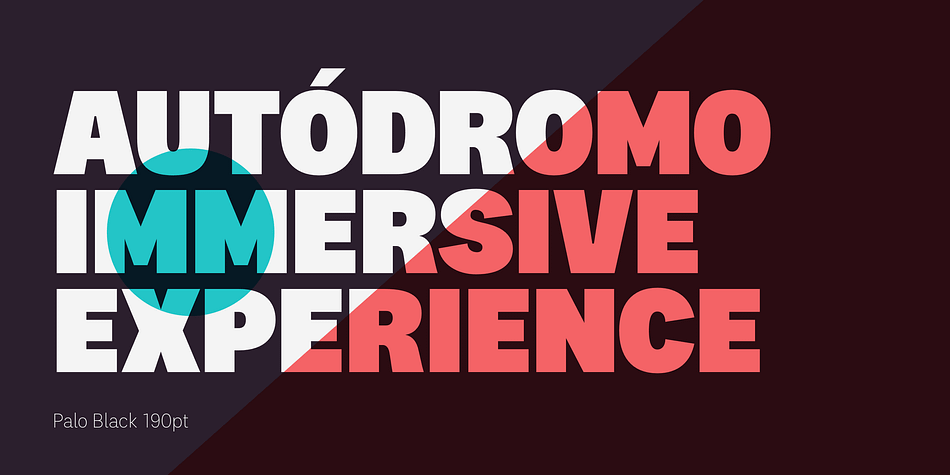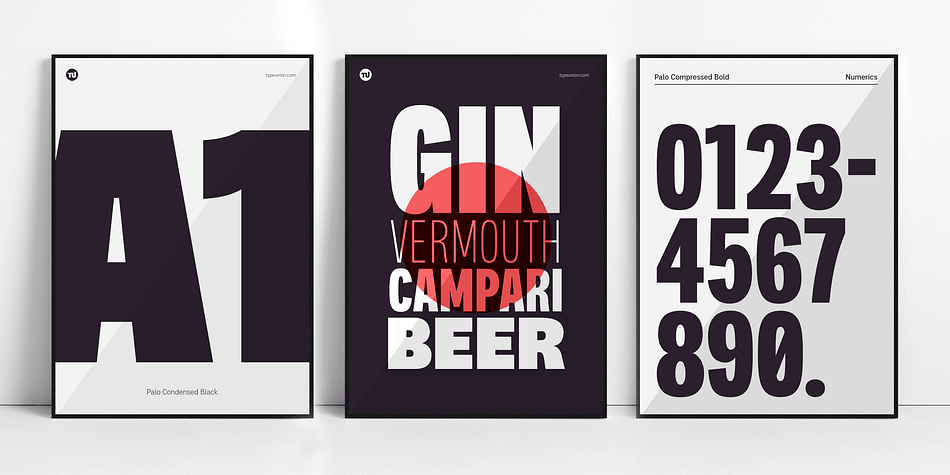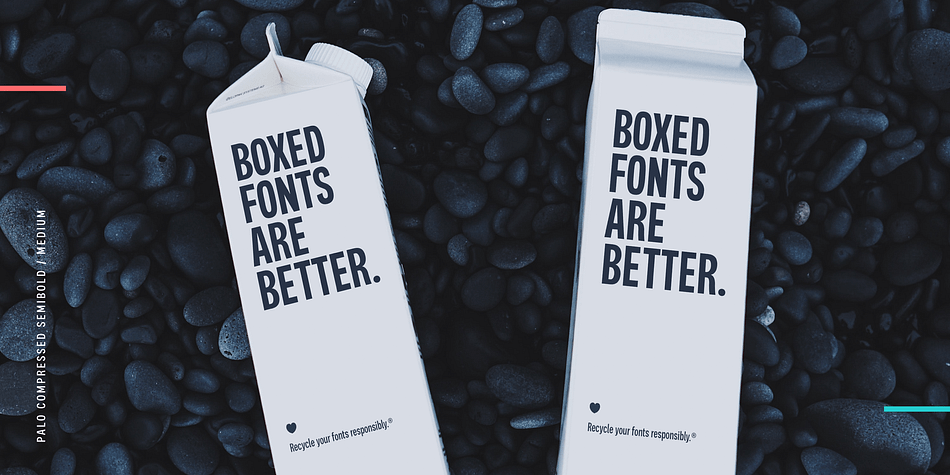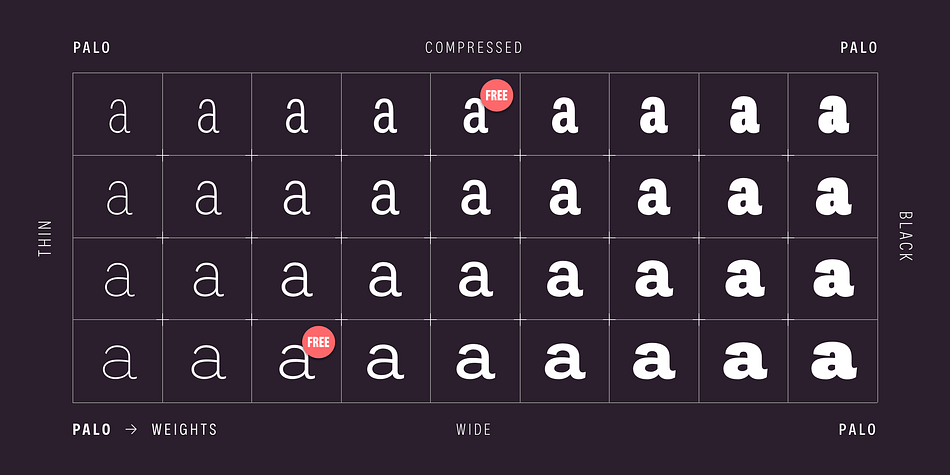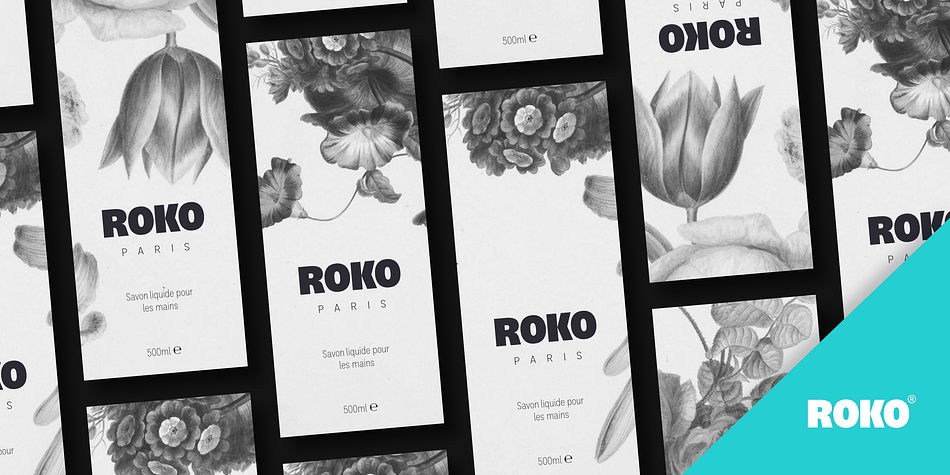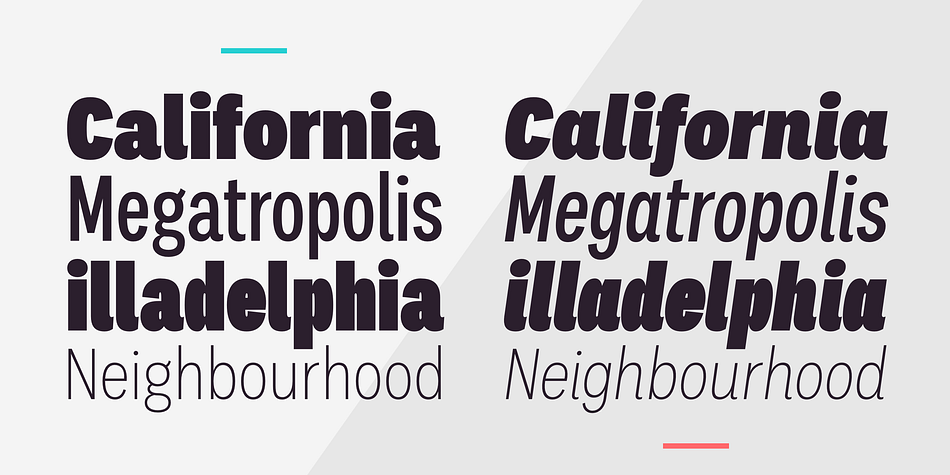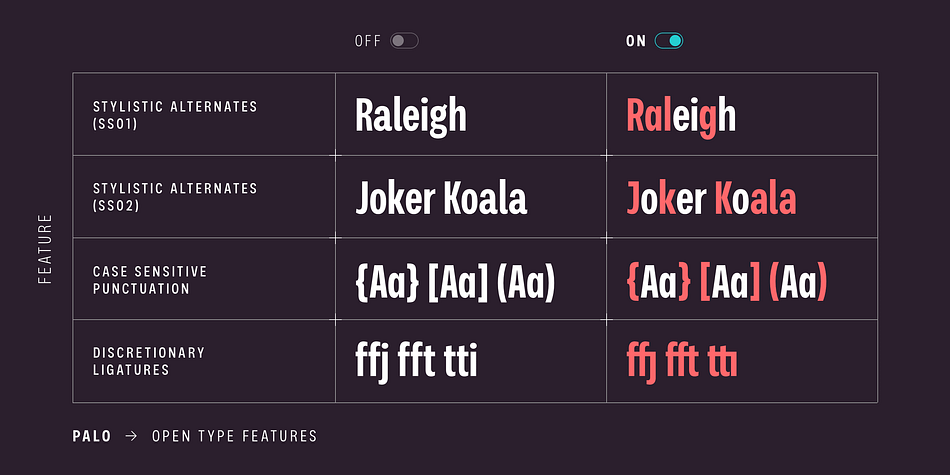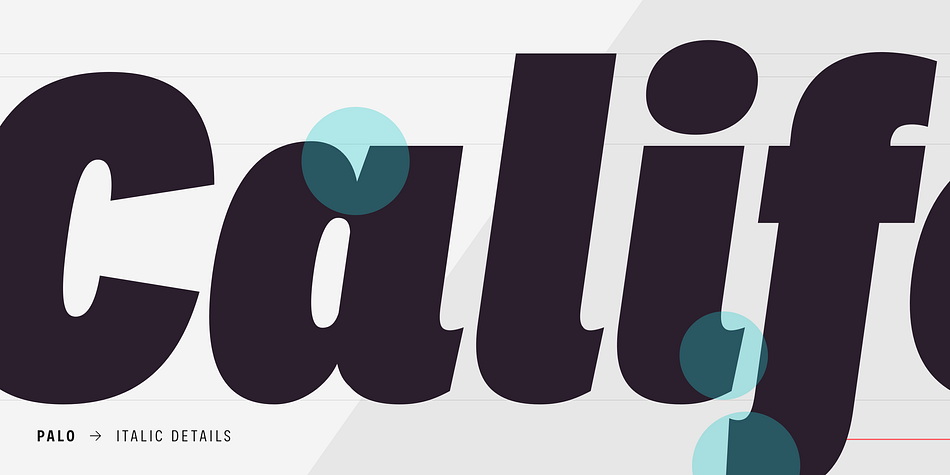
Designed by Dan Jones, Palo is a sans serif font family. This typeface has seventy-two styles and was published by TypeUnion.
Palo is a 72 style utility type system built around 4 widths and 9 weights plus matching italics. It’s semi grotesque appearance gives it a unique personality while the stylistic alternates give a true sense of flexibility and customisation.
Design features within Palo are evident without being excessive. 3 stylistic sets provide a range of functional to fluid design approaches. Case sensitive punctuation & ligatures offer a professional feel.
The italics have been optically adjusted to improve their weight balance and on select lower case glyphs they feature unique designs to make the italics a feature unto their own.